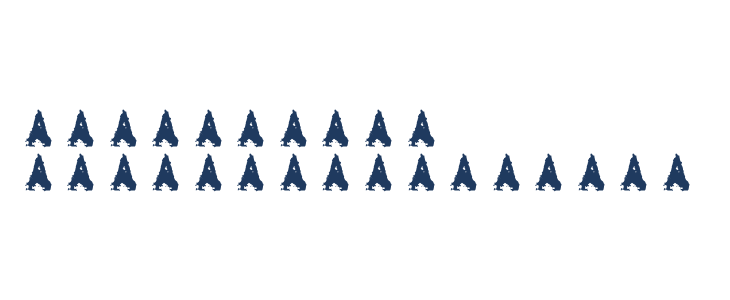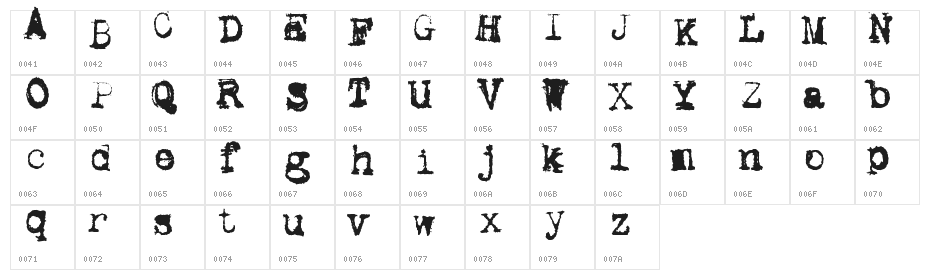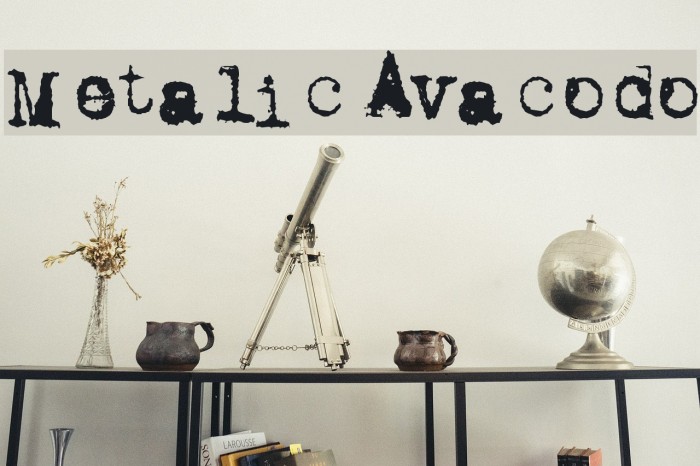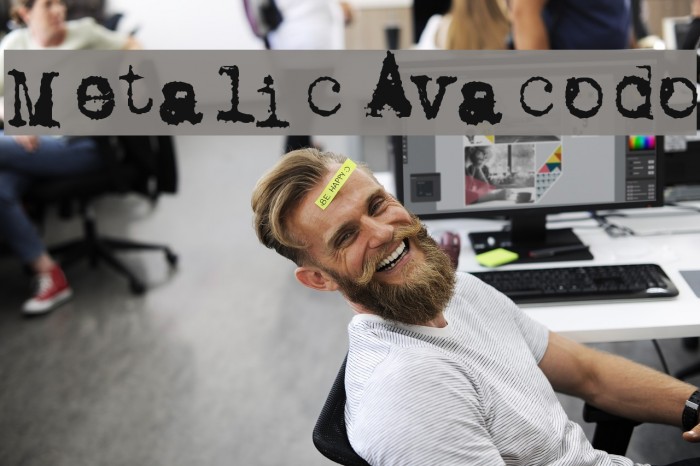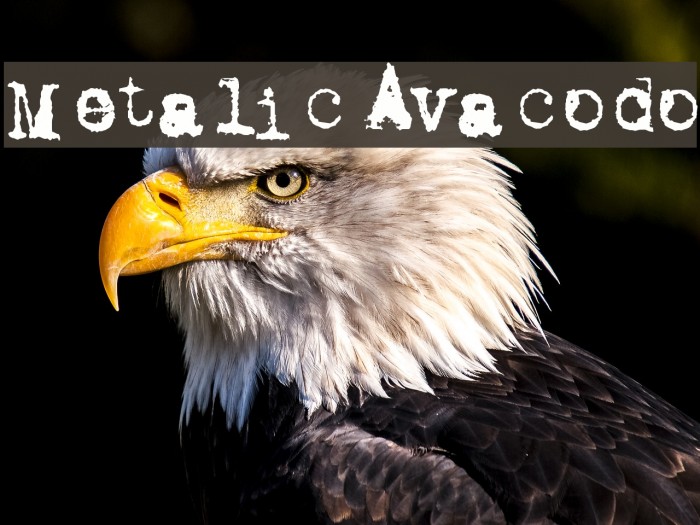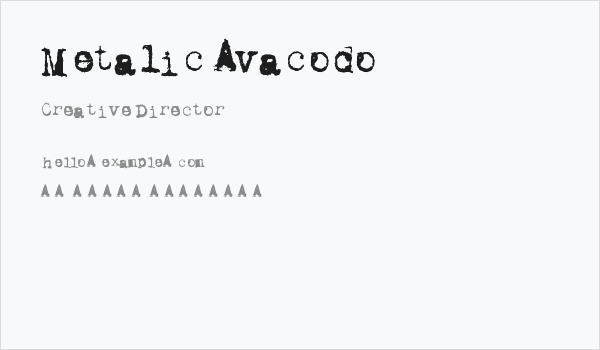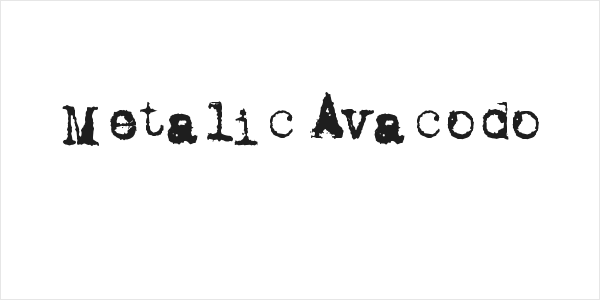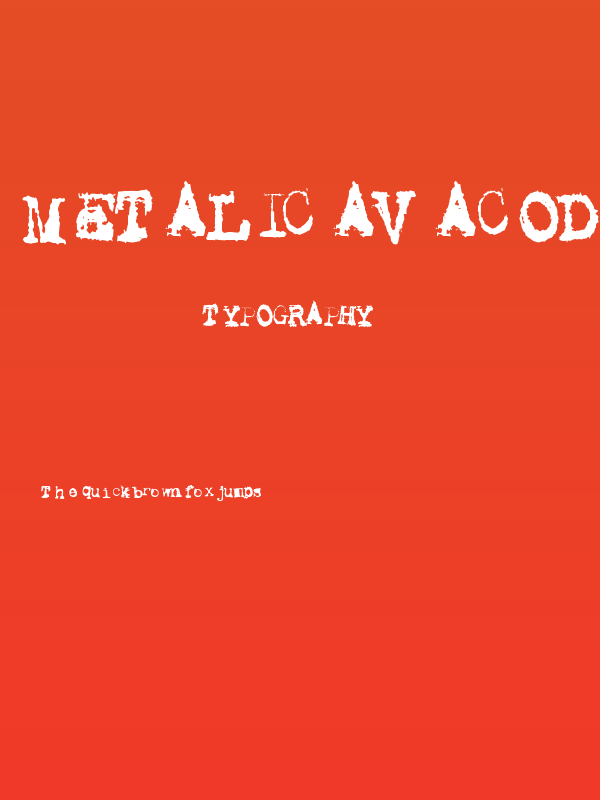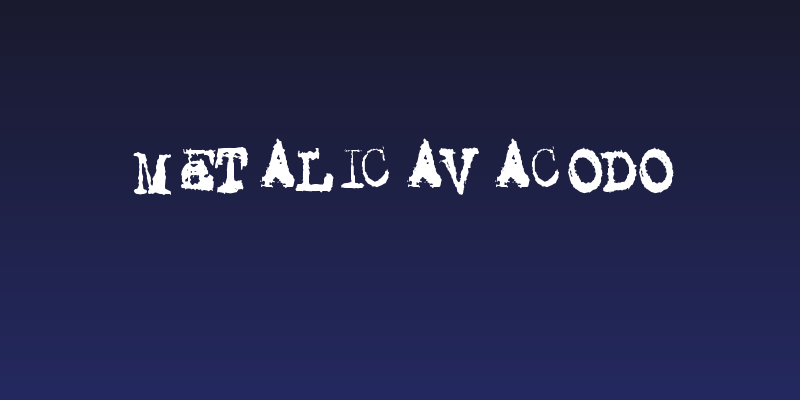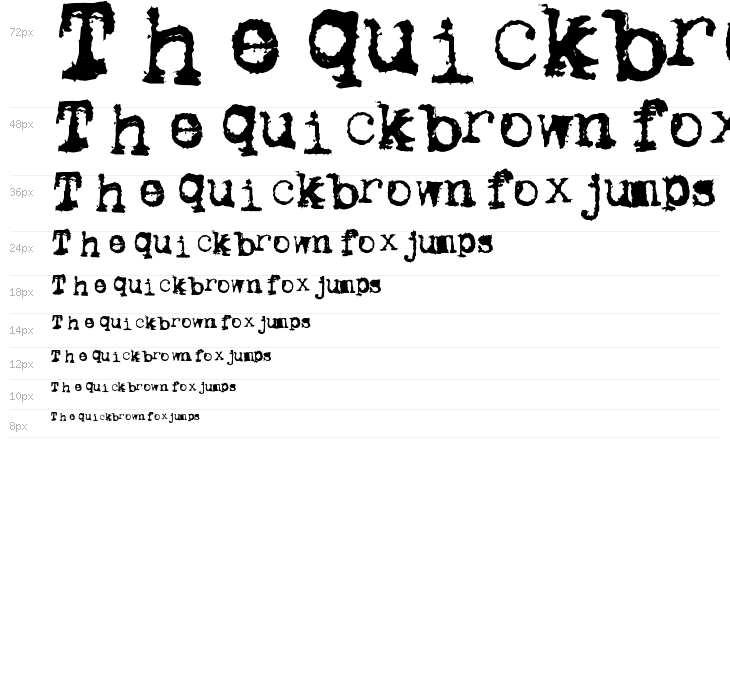
Metalic Avacodo Font
Metalic Avacodo Description
This font features a rugged, distressed appearance, with each character exhibiting a unique, weathered texture. The uppercase and lowercase letters maintain a consistent style, with irregular edges and a bold presence. The numerals and special characters follow the same design, adding to the font's cohesive look. The overall aesthetic is reminiscent of vintage or grunge styles, making it ideal for projects that require a bold, impactful statement. The font's distinct texture and boldness make it stand out, while the irregularities in the characters add a touch of authenticity and character.
| Proposed Projects | Ideal for album covers, posters, branding for edgy products, or any design needing a bold, vintage touch. |